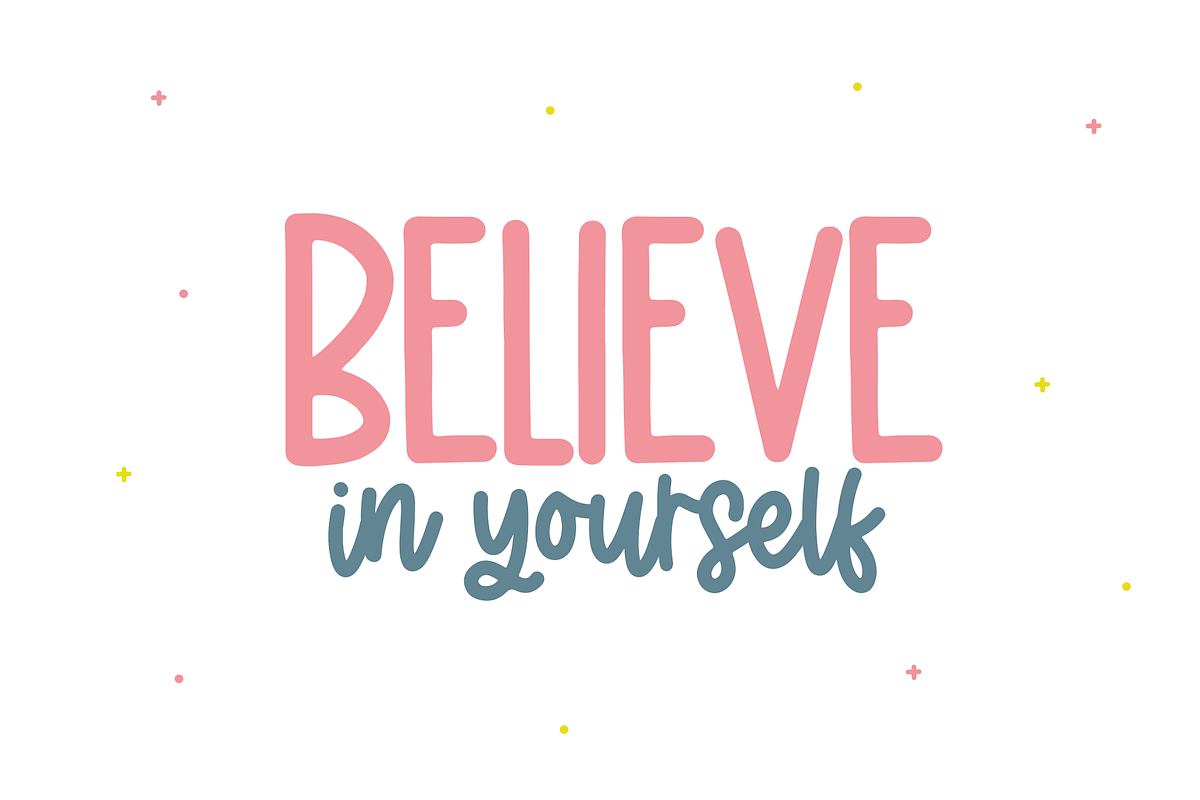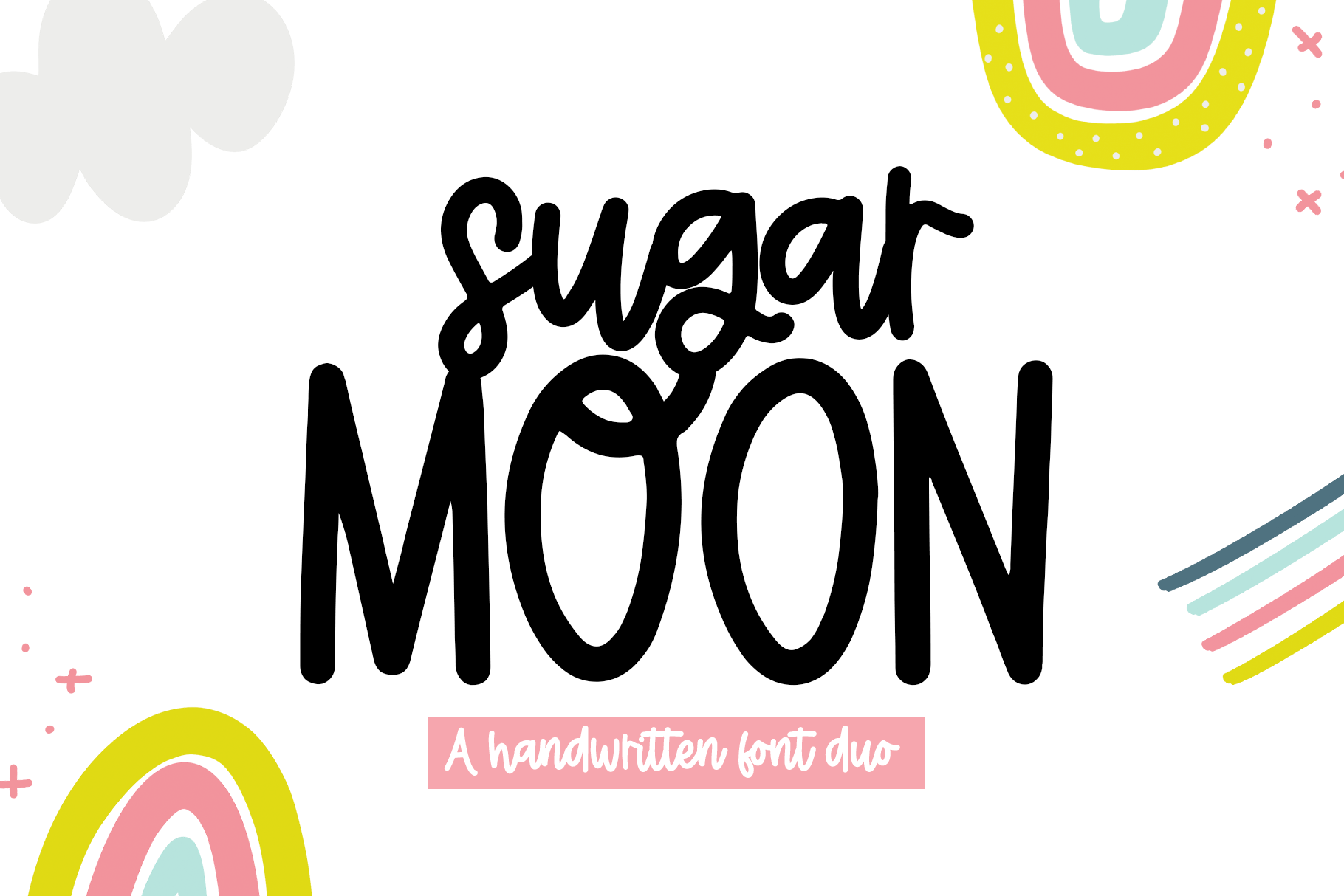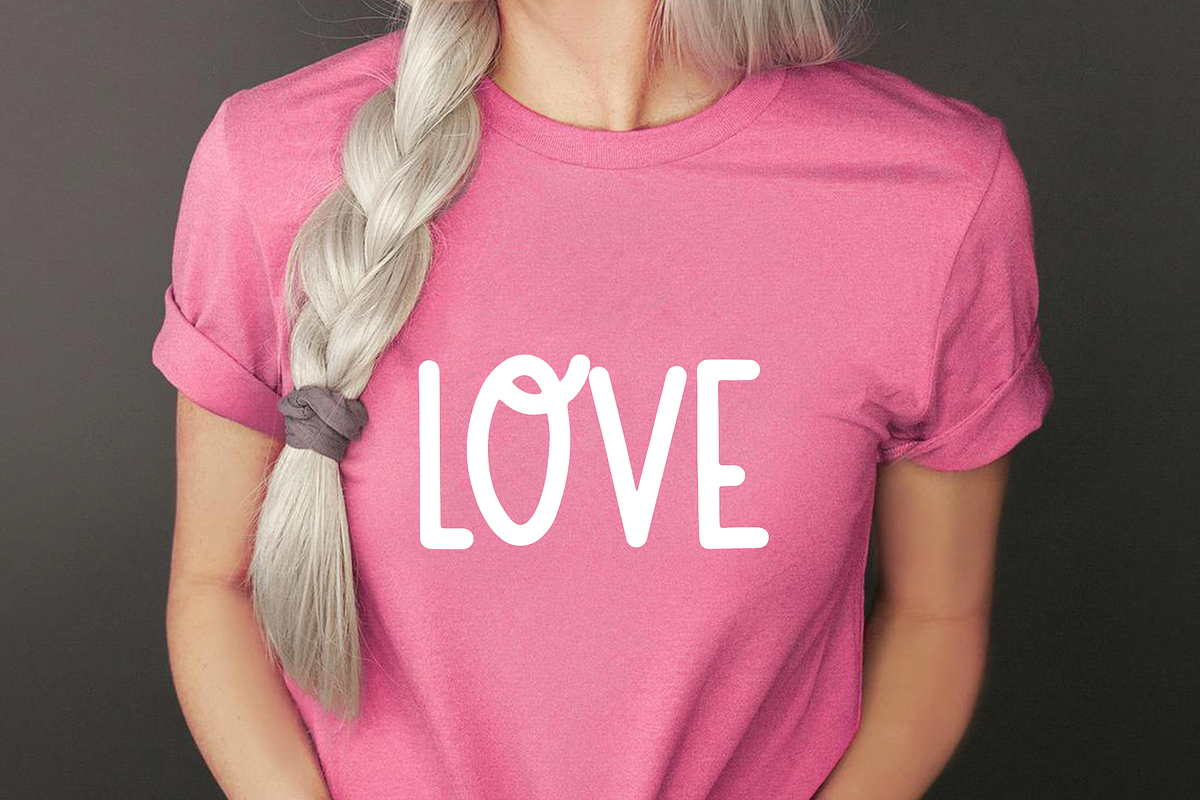
Sugar Moon | Handwritten Font Duo
Sugar Moon is a fun handwritten print/script font duo.
- Sugar Moon Print * a tall + quirky print font. [TTF & OTF]
- Sugar Moon Script * a fun script font. [TTF & OTF]
This duo is perfect for quotes, headings, blogs, logos, brandings, invitations and more!